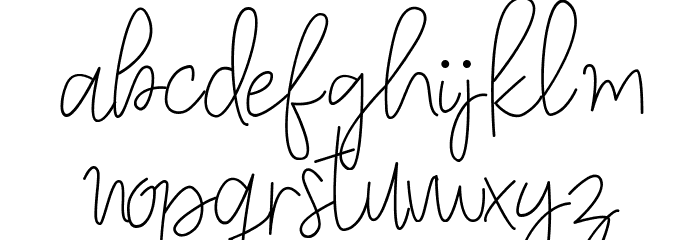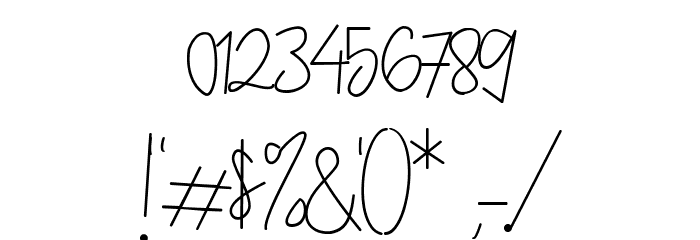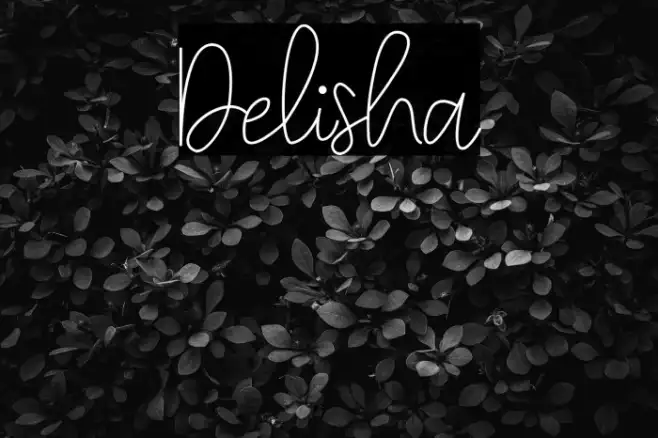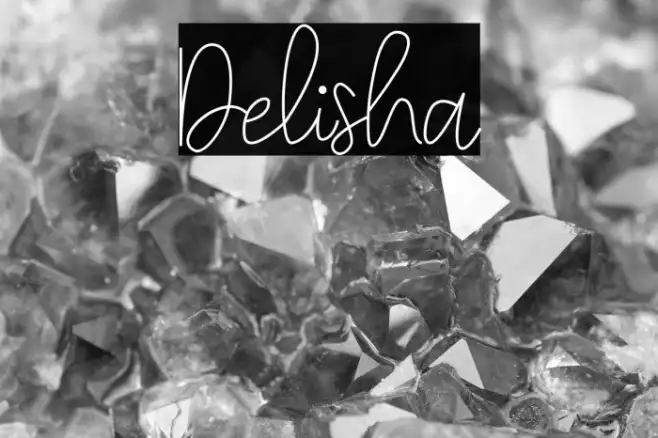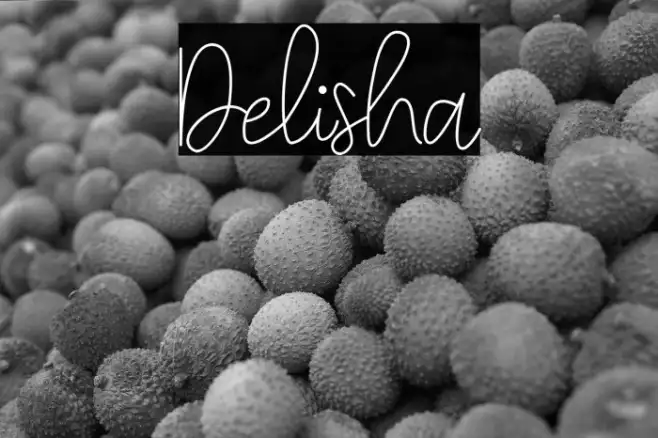
Delisha Font
This font exudes a playful and elegant handwritten style, characterized by its fluid and continuous strokes. The letters are connected in a cursive manner, giving it a natural and organic flow. The uppercase letters are slightly more structured, while the lowercase letters maintain a consistent, flowing script. The numerals and special characters complement the overall style with their smooth curves and loops. This font is ideal for projects that require a personal touch, such as invitations, greeting cards, and branding materials.
A playful and elegant handwritten script with fluid, connected strokes.
- Proposed Projects: Ideal for invitations, greeting cards, personal branding, and creative projects.
- Use Case: Logos, Invitations, Greeting Cards